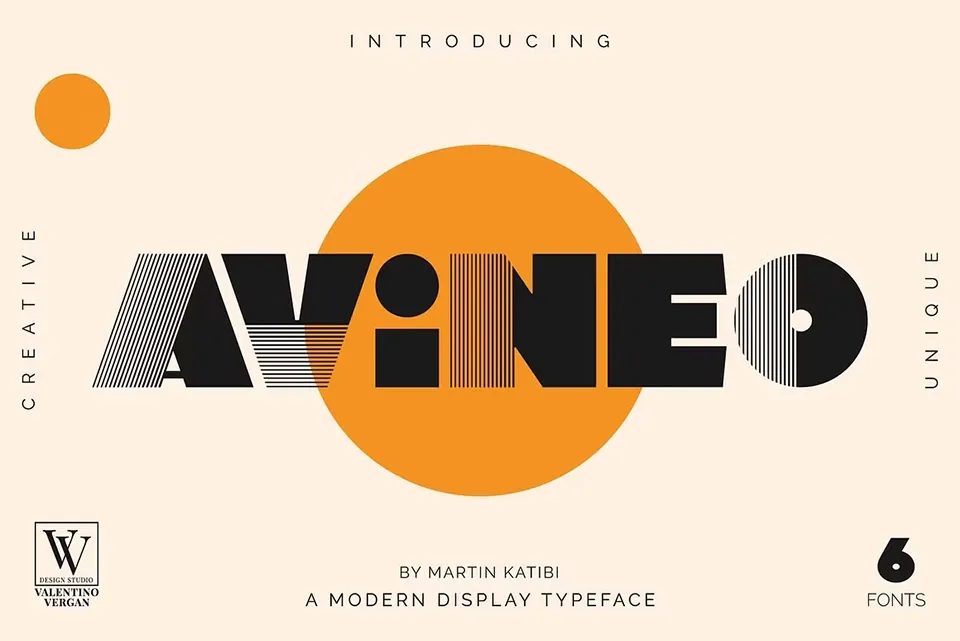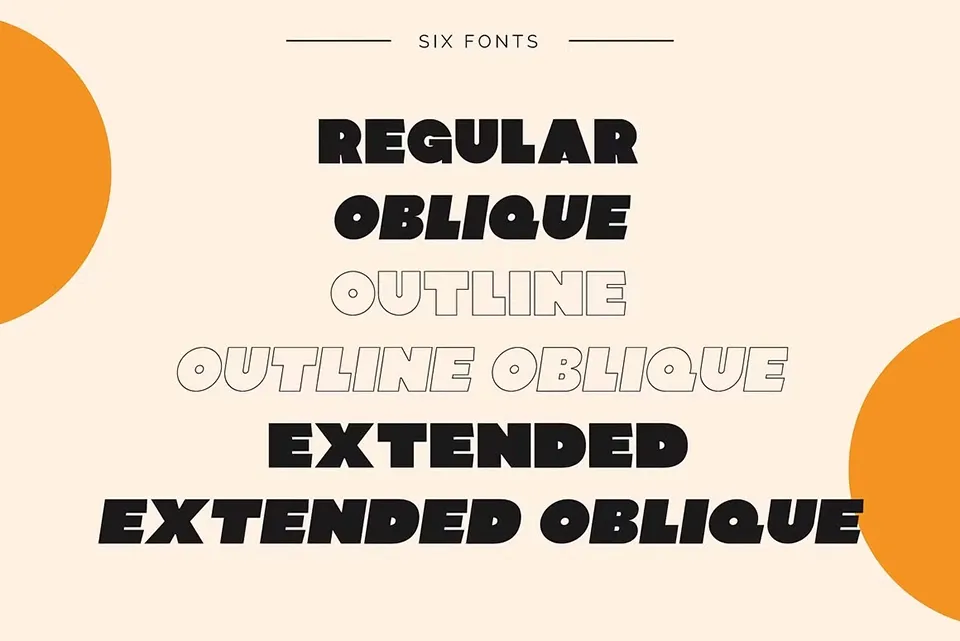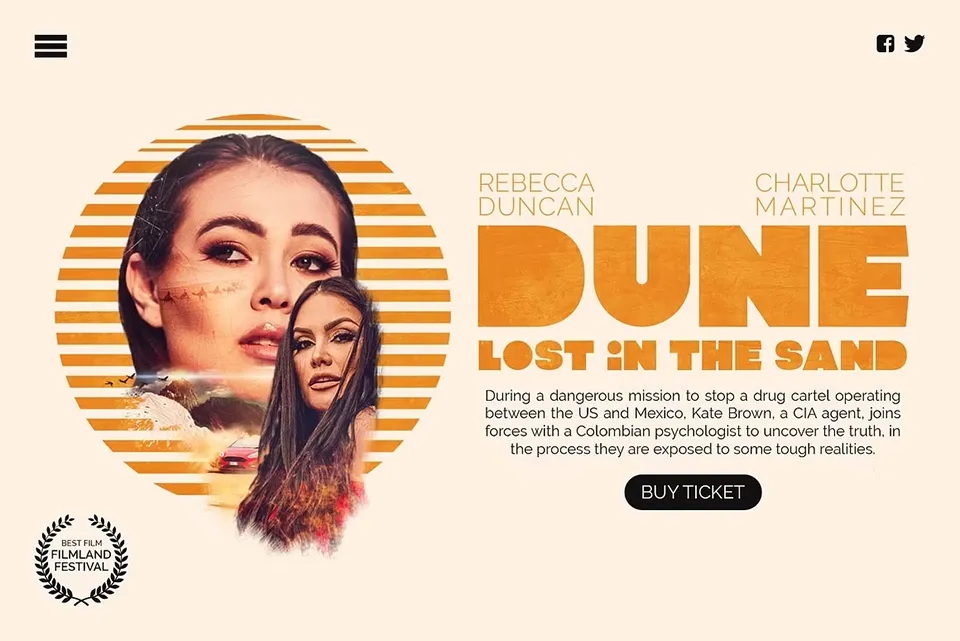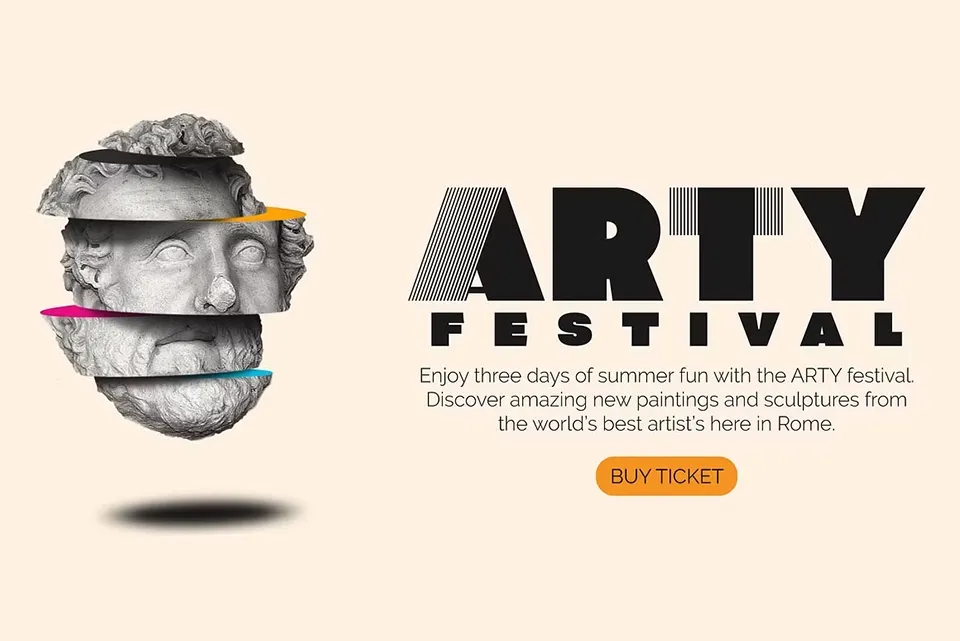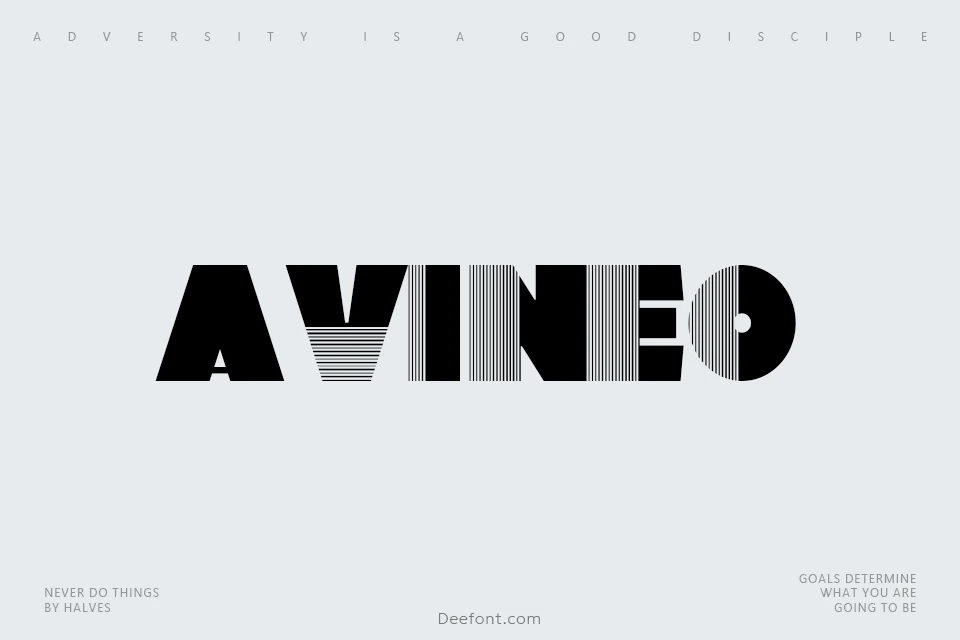
Avineo Font
Avineo Font is a bold and modern display font designed to make a statement. With its geometric shapes, clean lines, and creative use of patterns, it offers a unique and eye-catching aesthetic perfect for contemporary design projects. Ideal for branding, posters, headlines, and packaging, Avineo combines versatility with artistic flair to create impactful visuals. The font includes six distinct styles, allowing designers to experiment with different looks while maintaining consistency. Its striking design ensures attention and adds a touch of sophistication to any creative work. Avineo is a must-have for those seeking innovation and originality in typography.